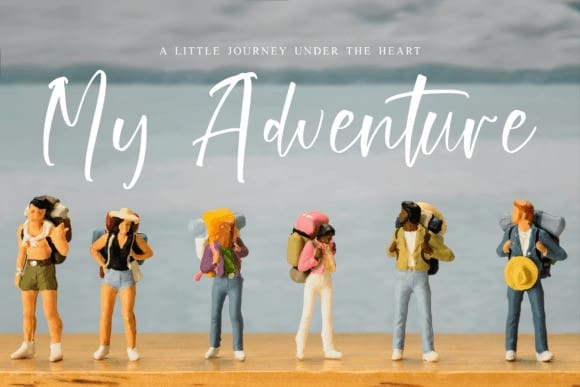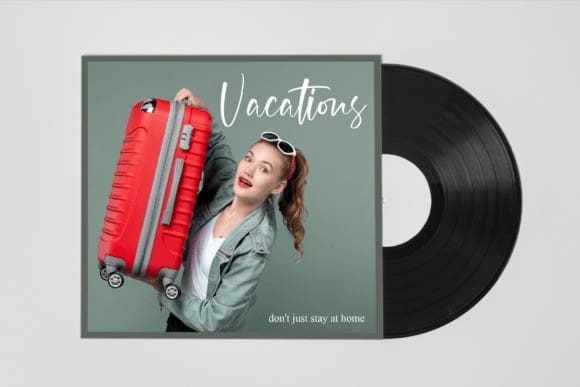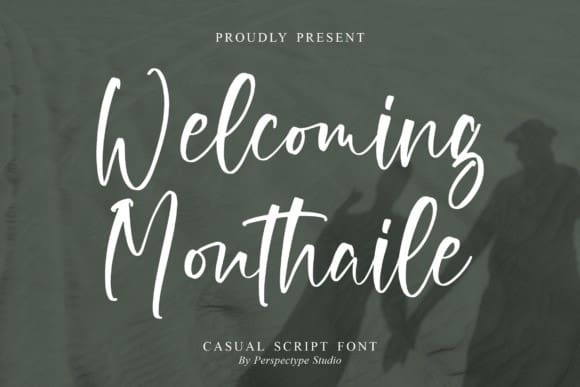
Welcoming Monthaile Font
Welcoming Monthaile Font is a casual script font. It’s suitable for logos, branding projects, homeware designs, product packaging, mugs, quotes, posters, shopping bags, t-shirts, book covers, name cards, invitation cards, greeting cards, labels, photography, watermark, or special events.